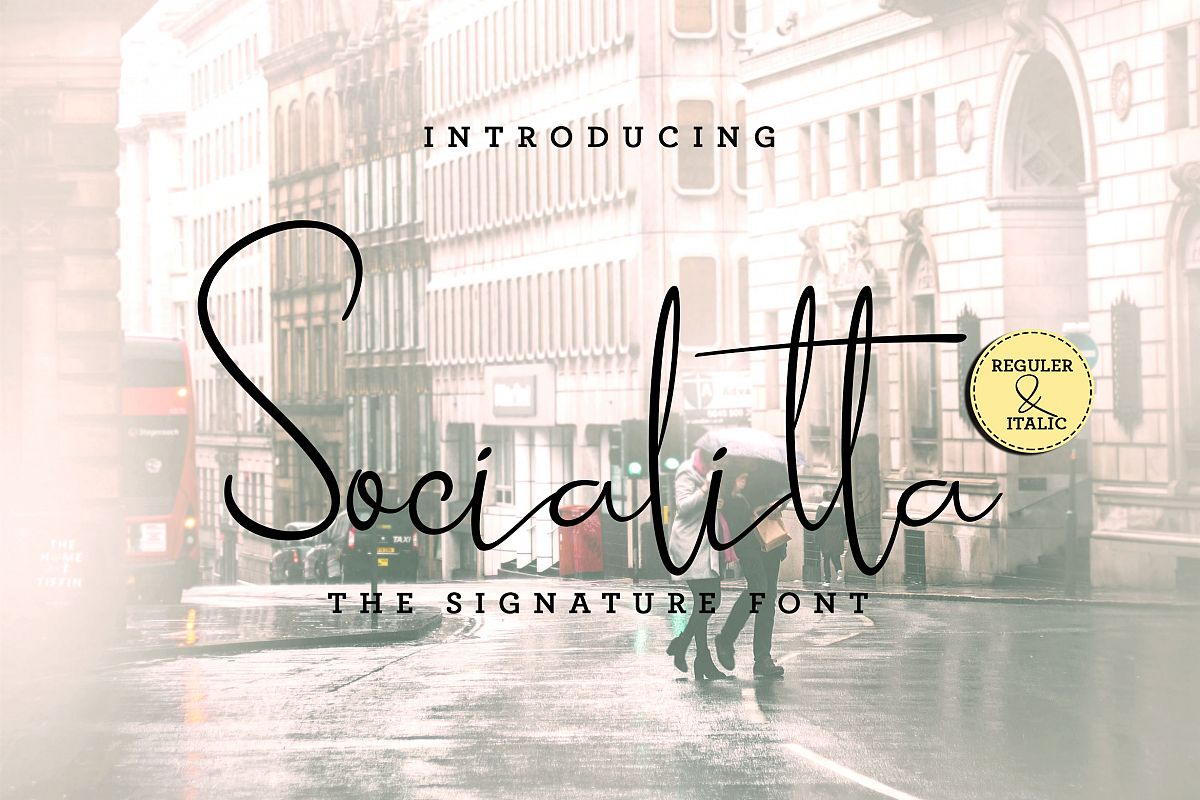
Socialitta
The Socialitta is inspired by handwriting with delicate and beautiful scratches. It’s very suitable for stylish and exclusive signature branding.